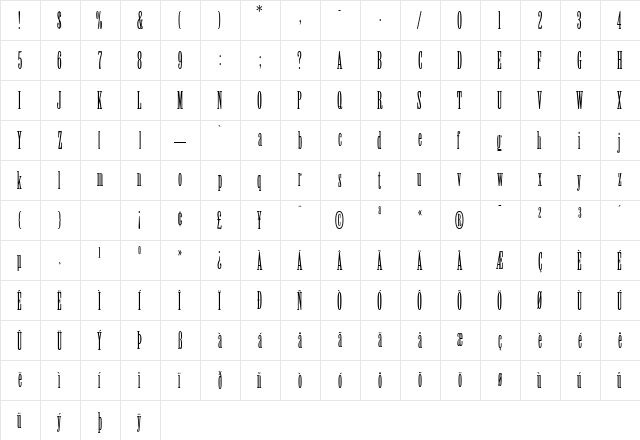
Willow Light Font Preview
Willow Light
Willow Light Font Details
Design Context for Willow Typeface
Willow is a composed and adaptable typeface that performs quietly and consistently across a wide range of design contexts. Its slender proportions lend an understated elegance to any composition.
Pro Tip: Use Willow in both headline and body roles to test its range before committing to a single application.